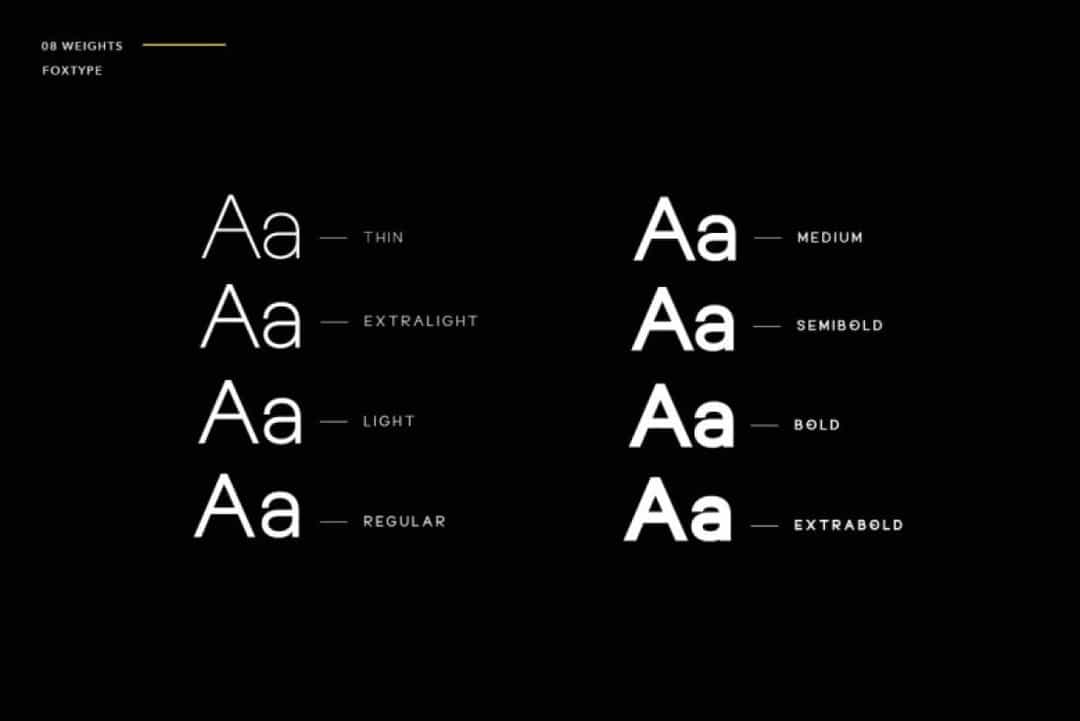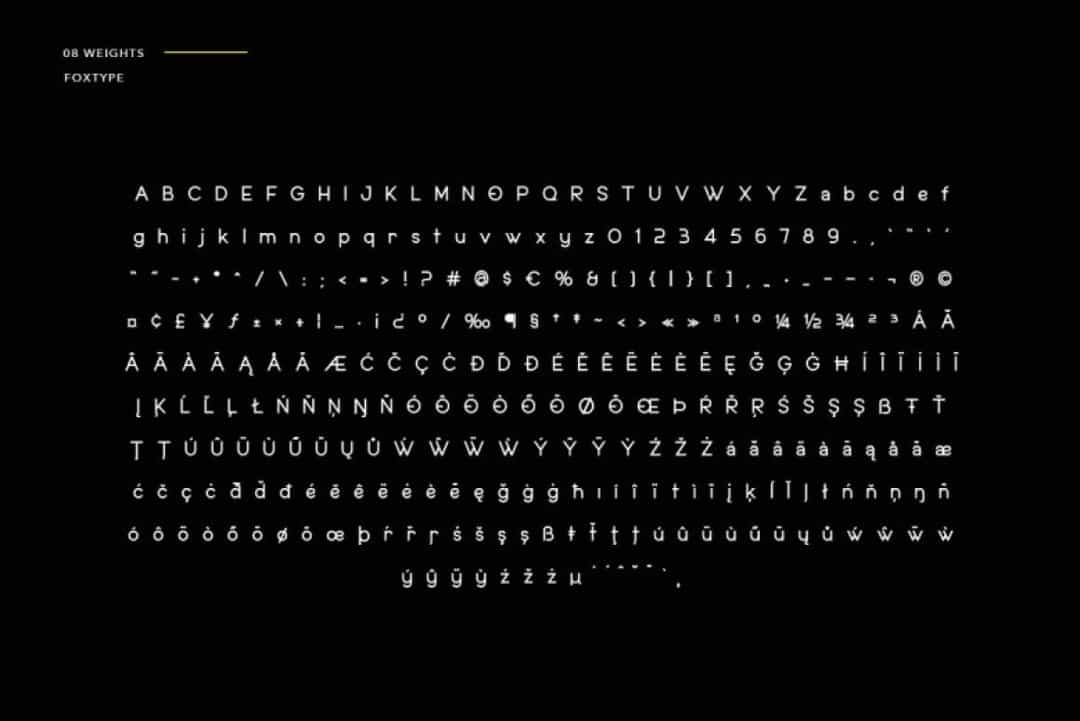
Discover Bonwick Typeface, part of the Sans Serif Display collection—a versatile and unique font perfect for adding a personal touch to your projects. Download it for free and enjoy crafting designs with style, from invitations to social media posts. This font is available exclusively for personal use, giving you the freedom to create without limits. Unlock your creativity with Bonwick Typeface today!
Bonwick Sans Font is an elegant modern typeface which incorporates Web fonts. This font can be used in small to large sizes for logos, branding headlines, captions and headlines; and can also serve as an eye-catching text overlay in images.